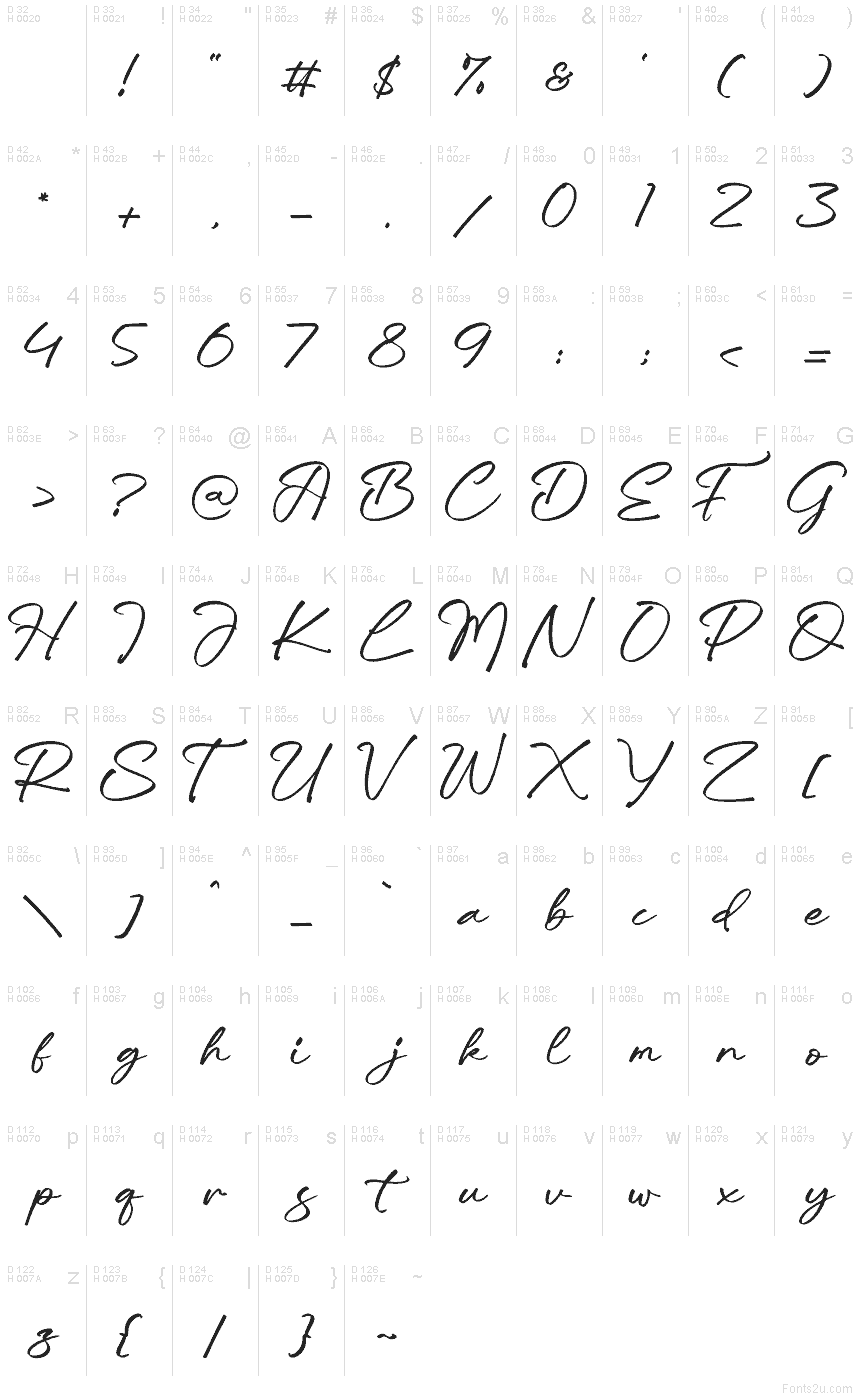
Trelasty Bettany
Trelasty Bettany font by Integritype Studio is a free handwritten font that captures the essence of elegance and sophistication. Its flowing and expressive style adds an artistic touch, making it ideal for contemporary applications. This graceful typeface conveys a sense of refinement and creativity.
Perfect for branding, invitations, greeting cards, packaging design, book covers, posters, apparel designs, product labels, website headers—or simply adding a touch of elegance to any project!